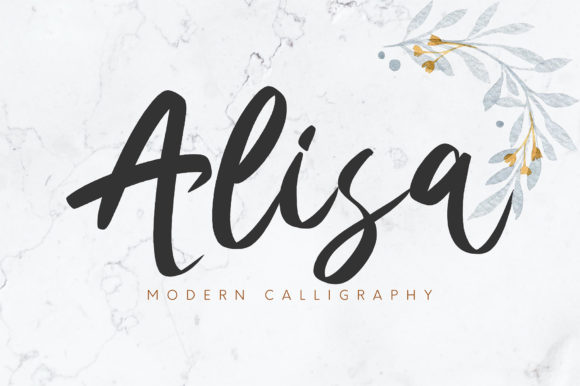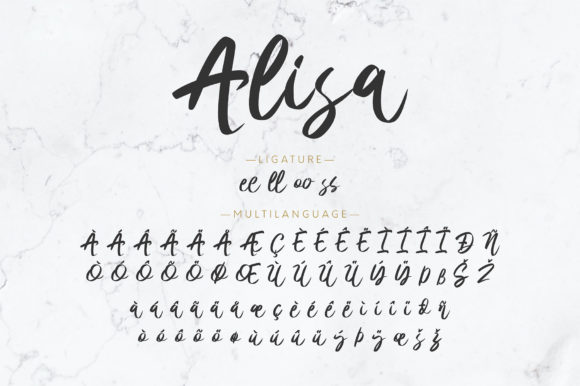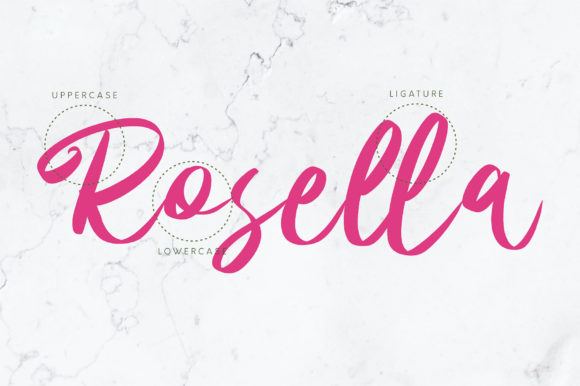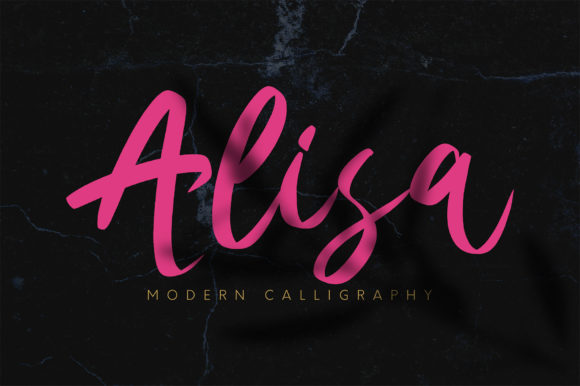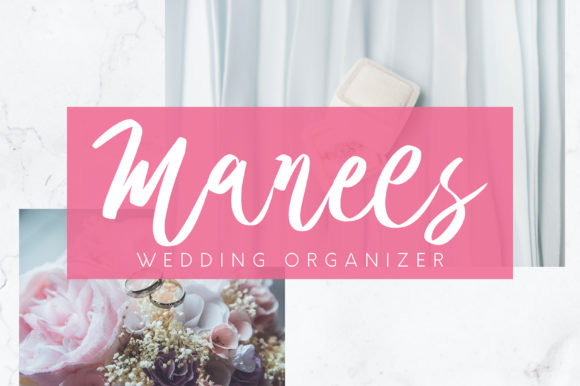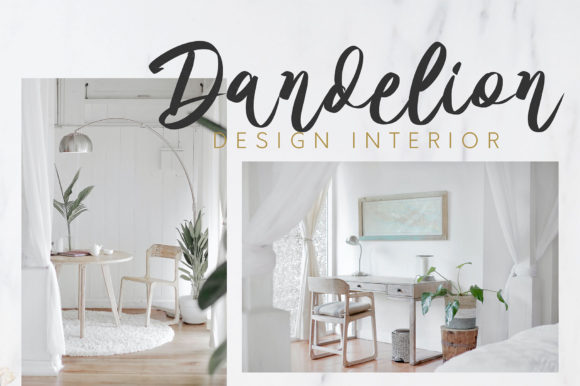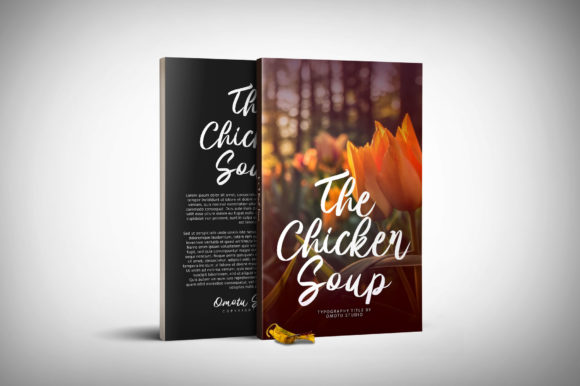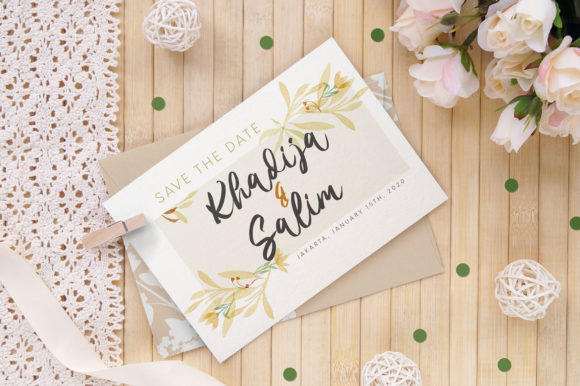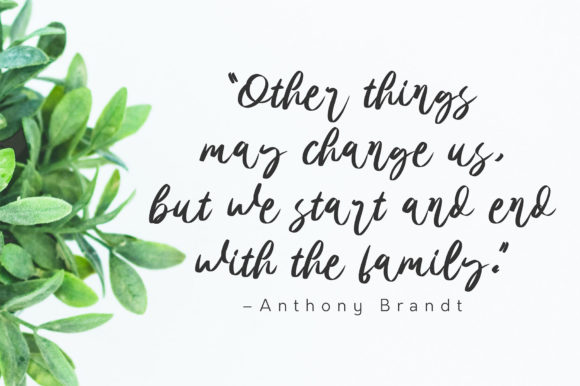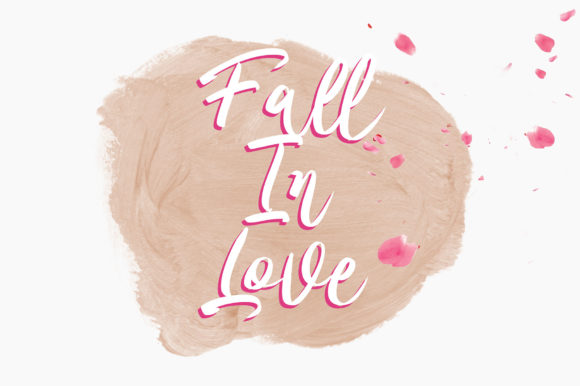
Alisa Font
About Alisa Font
Alisa is a sweet, soft hand-lettered handwritten font. It features an incredibly classic style, while still keeping a friendly feel. Alisa is the perfect font for making original and outstanding designs.